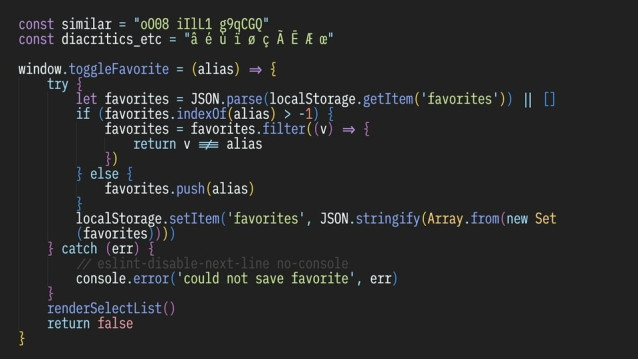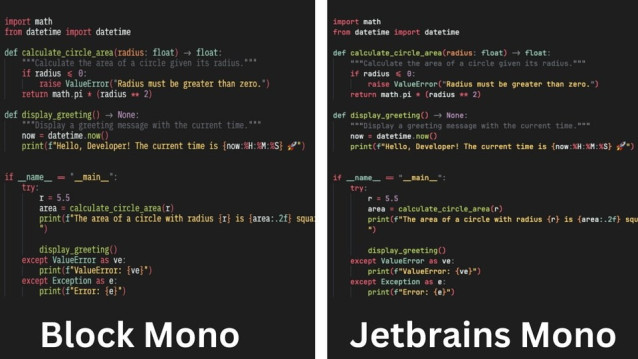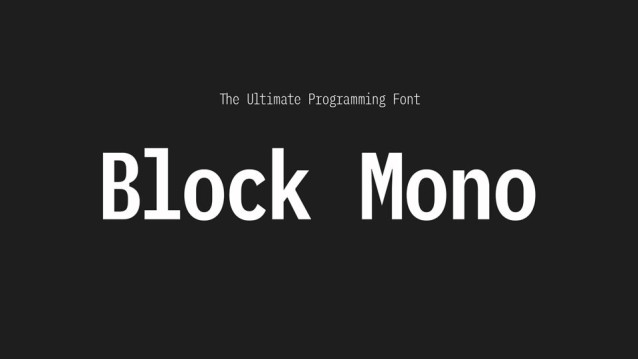
Block Mono Font Family
Block Mono Font Family is a meticulously crafted programming font designed to make every keystroke a masterpiece. Tall, elegant, and exceptionally readable, it’s the perfect companion for developers who demand both beauty and functionality in their coding environment.
Built for Developers
Specifically crafted for code editors, terminals, and development environments
Exceptional readability and clarity in coding contexts
Advanced Typography
Beautiful ligatures for coding symbols
Variable weights from Thin to Bold
Enhanced vertical proportions for maximum legibility
Pixel-perfect rendering on all screen sizes and resolutions
Comprehensive Support
Complete Nerd Font integration with developer icons and symbols
Multi-language support for various programming languages and character sets
Optimized for modern development environments